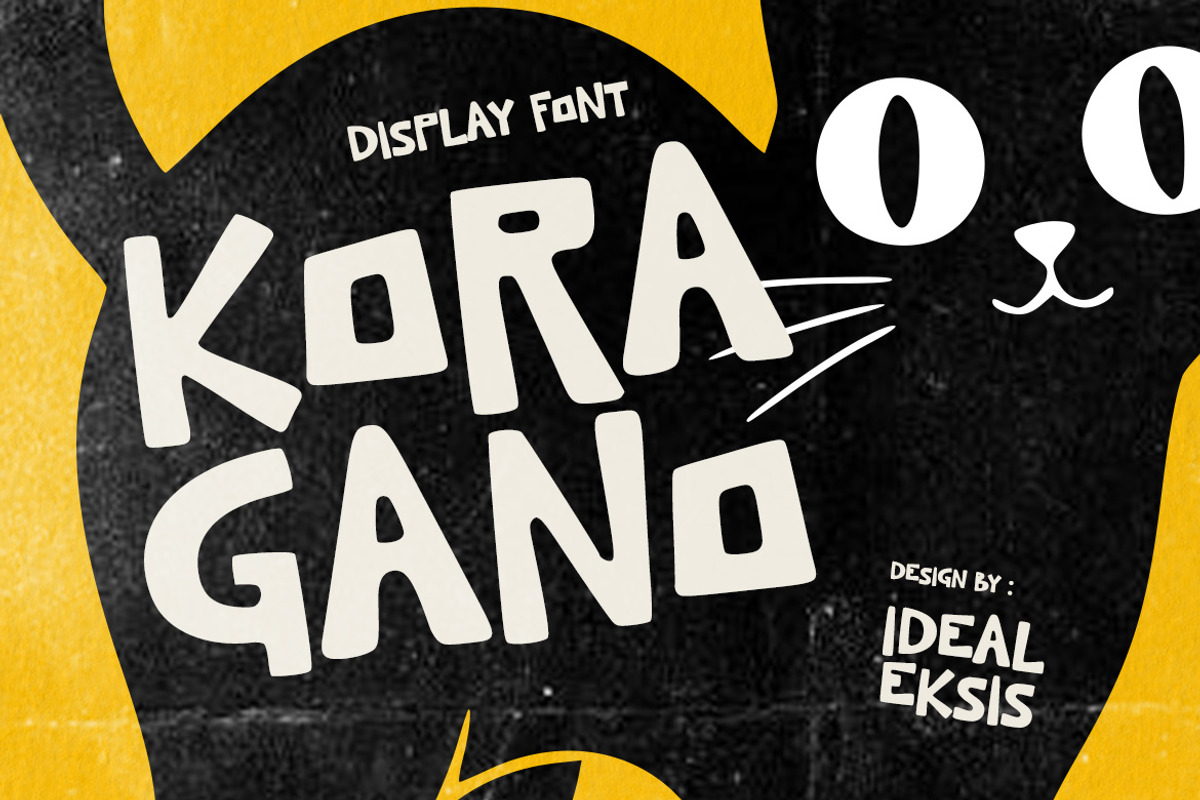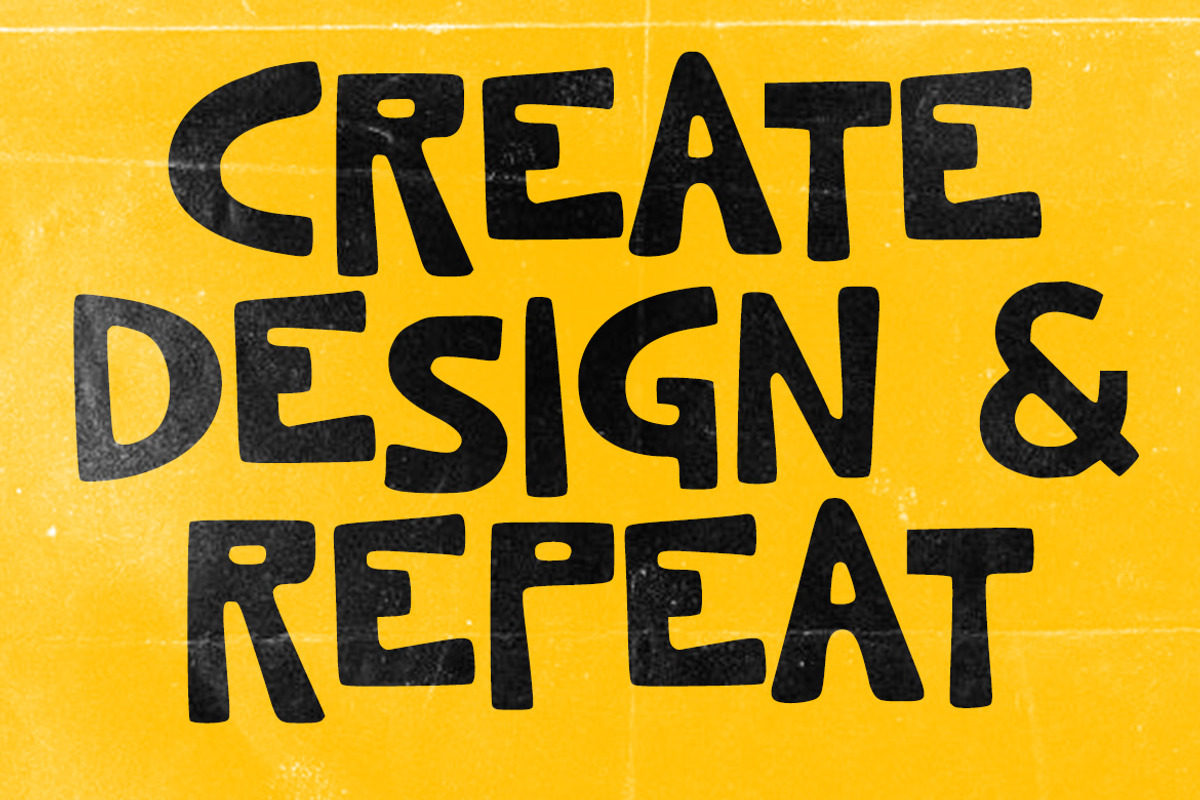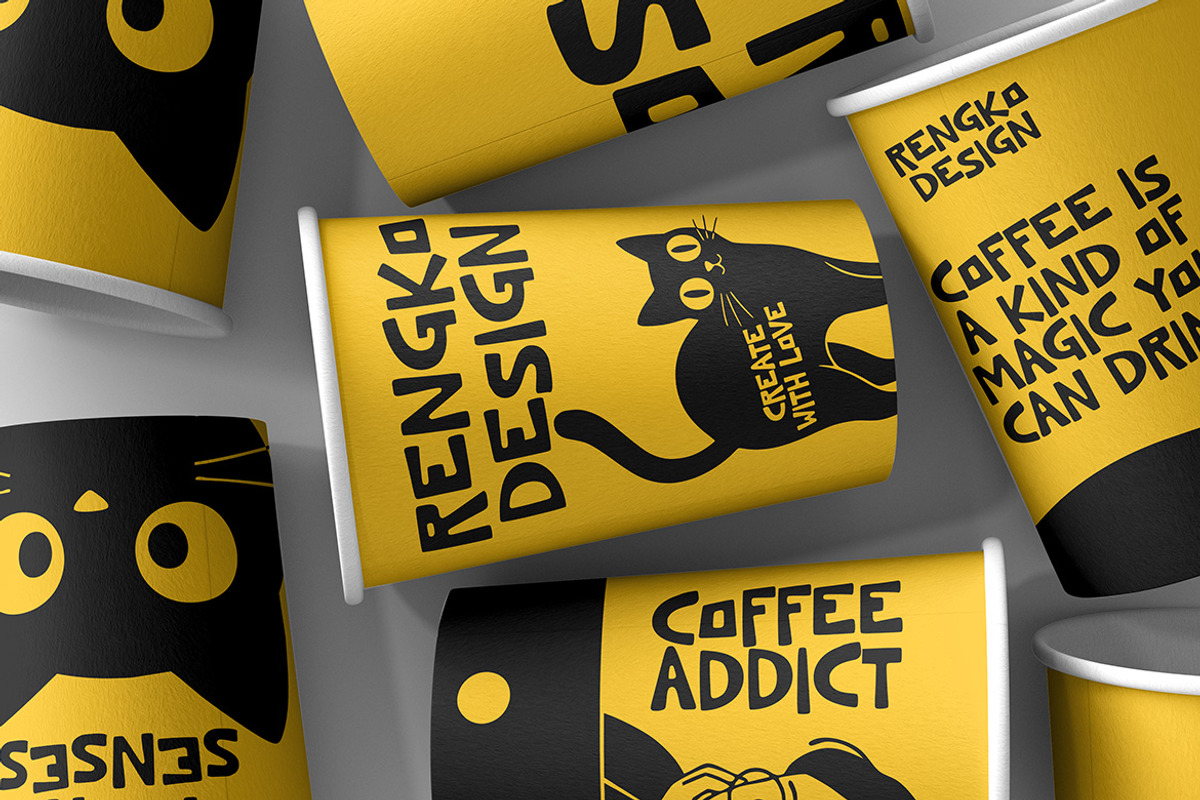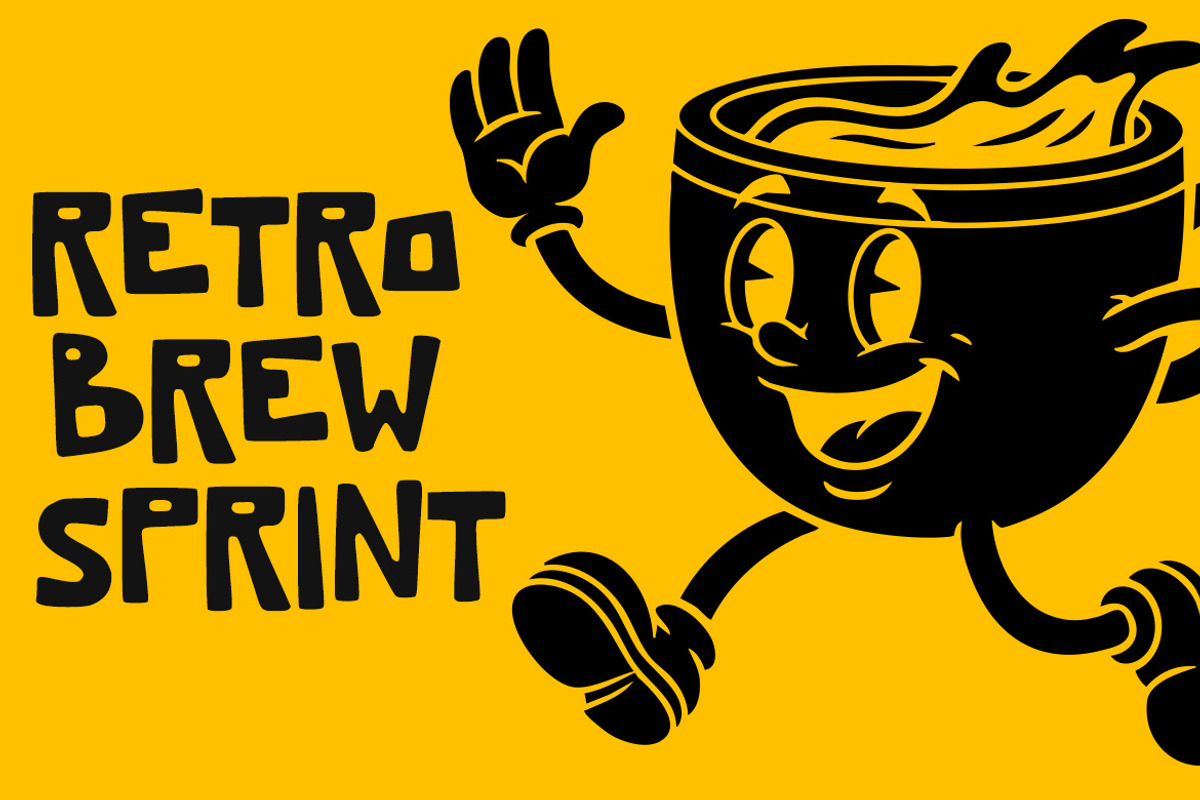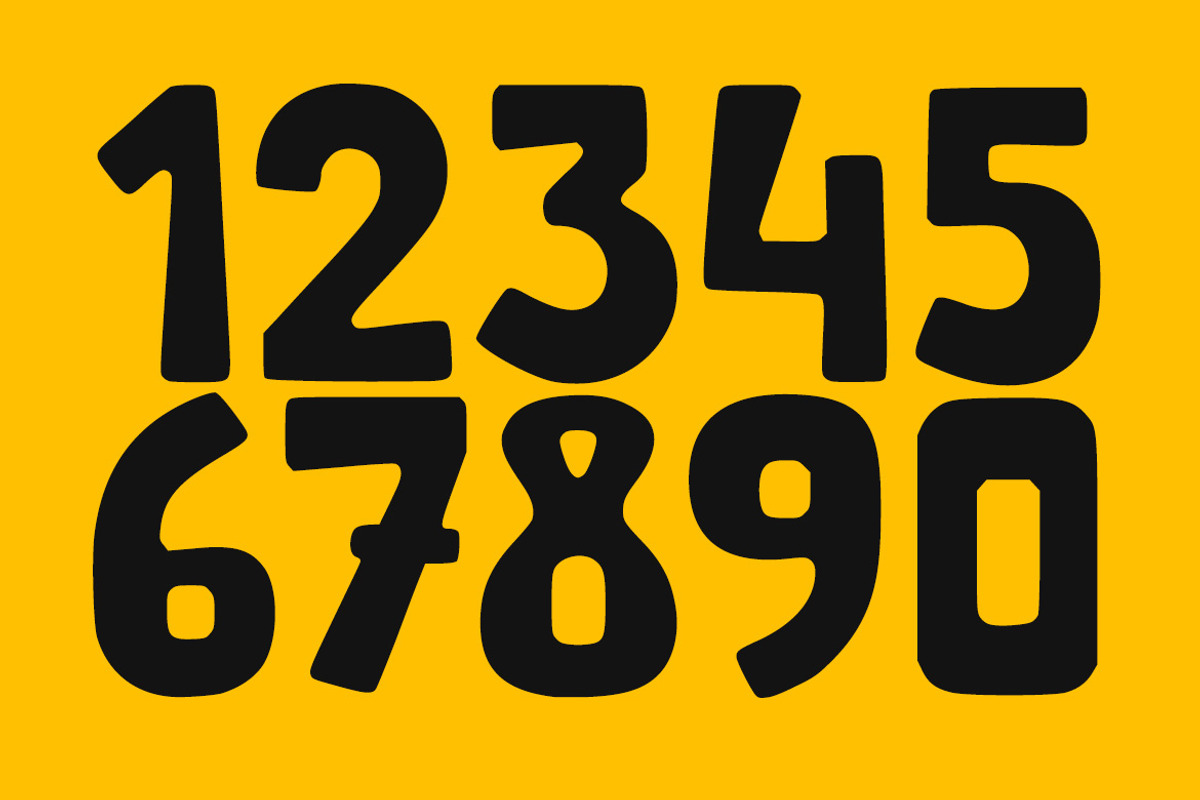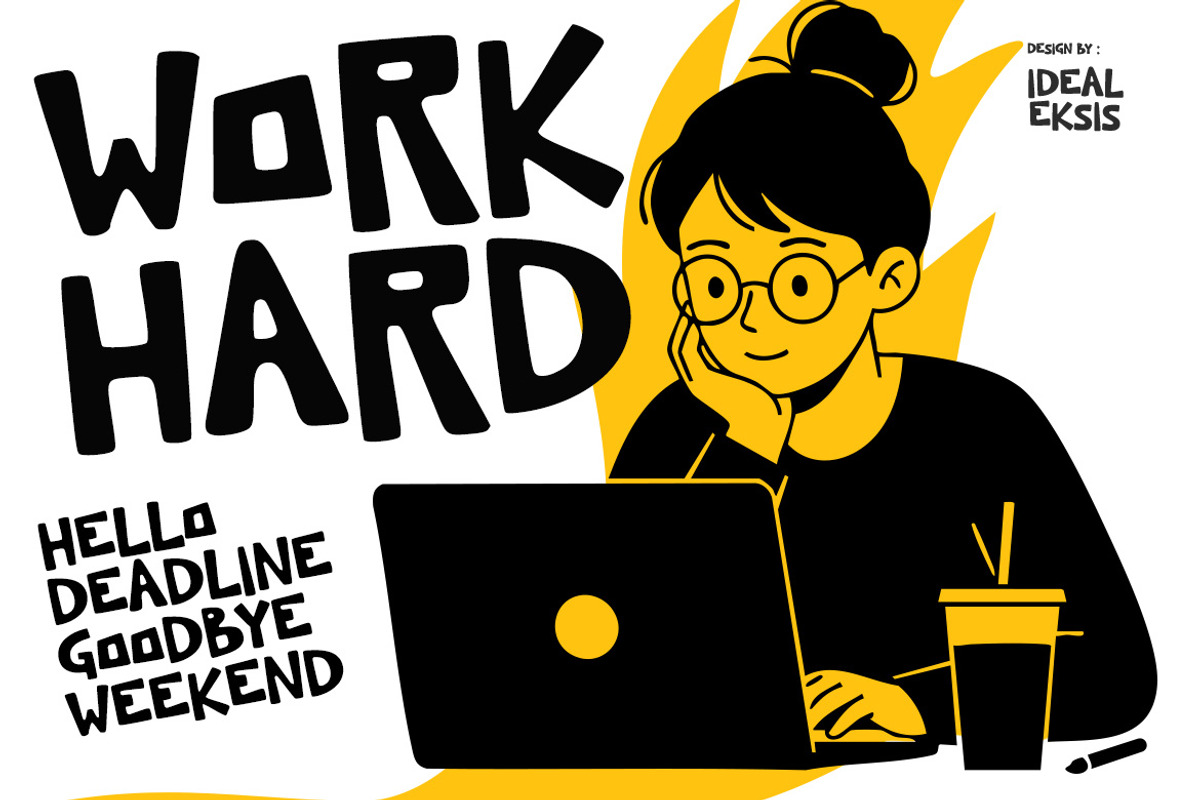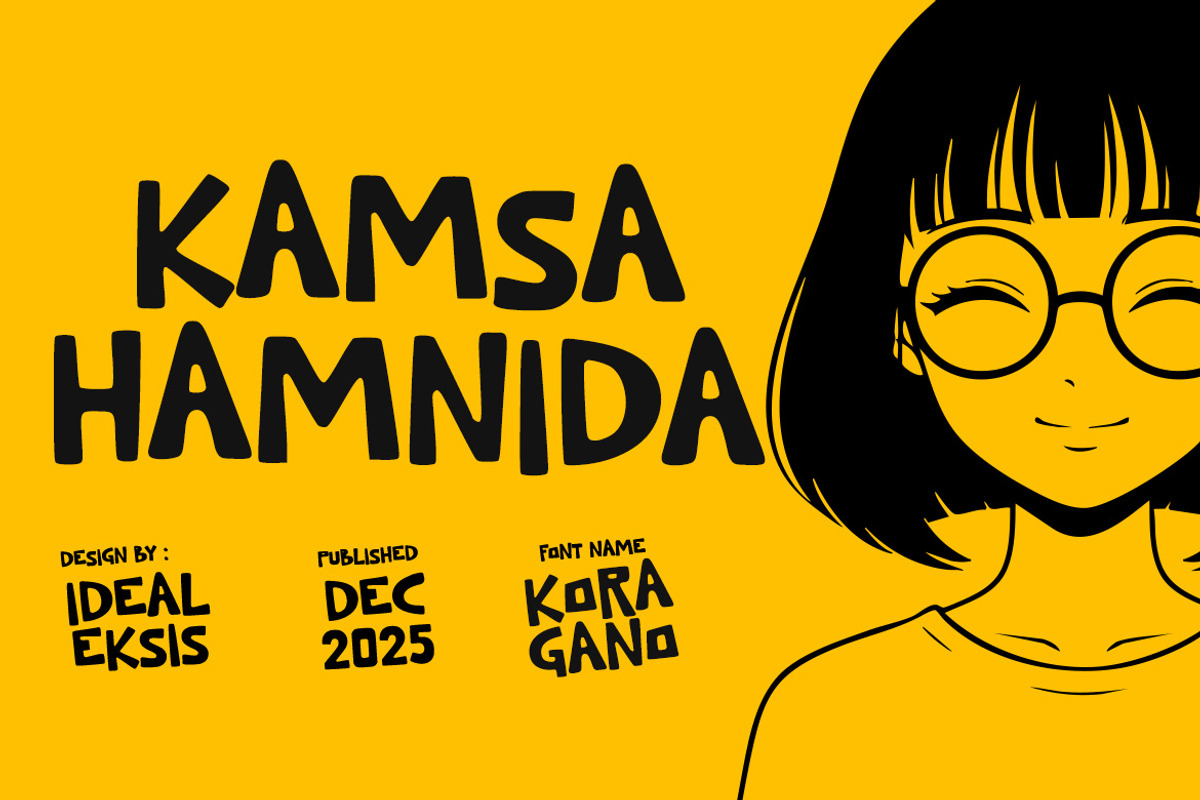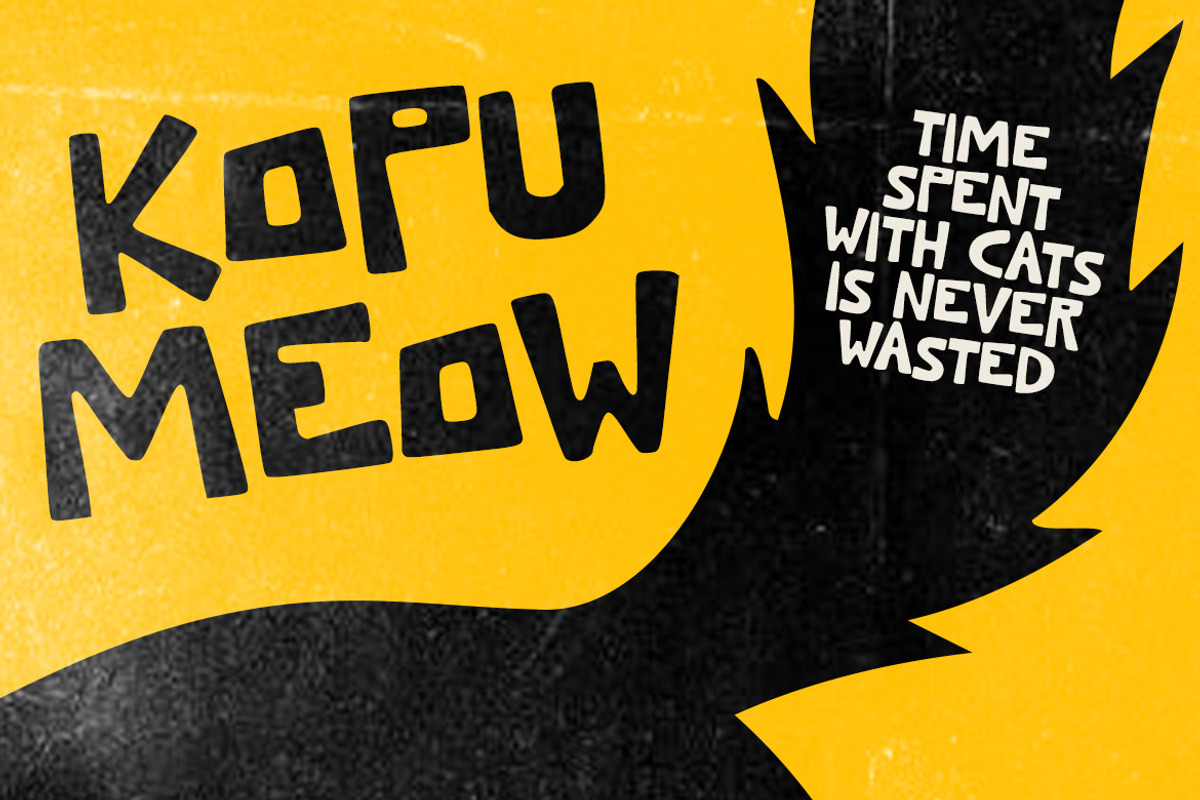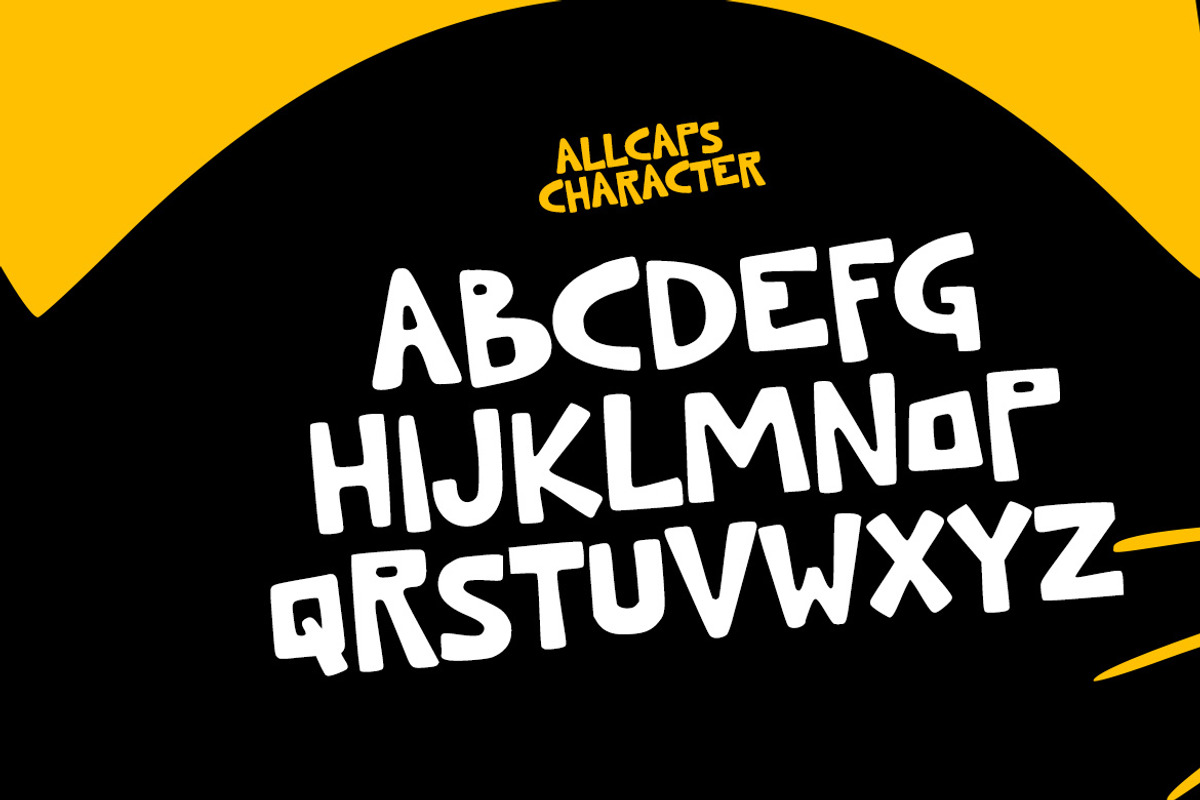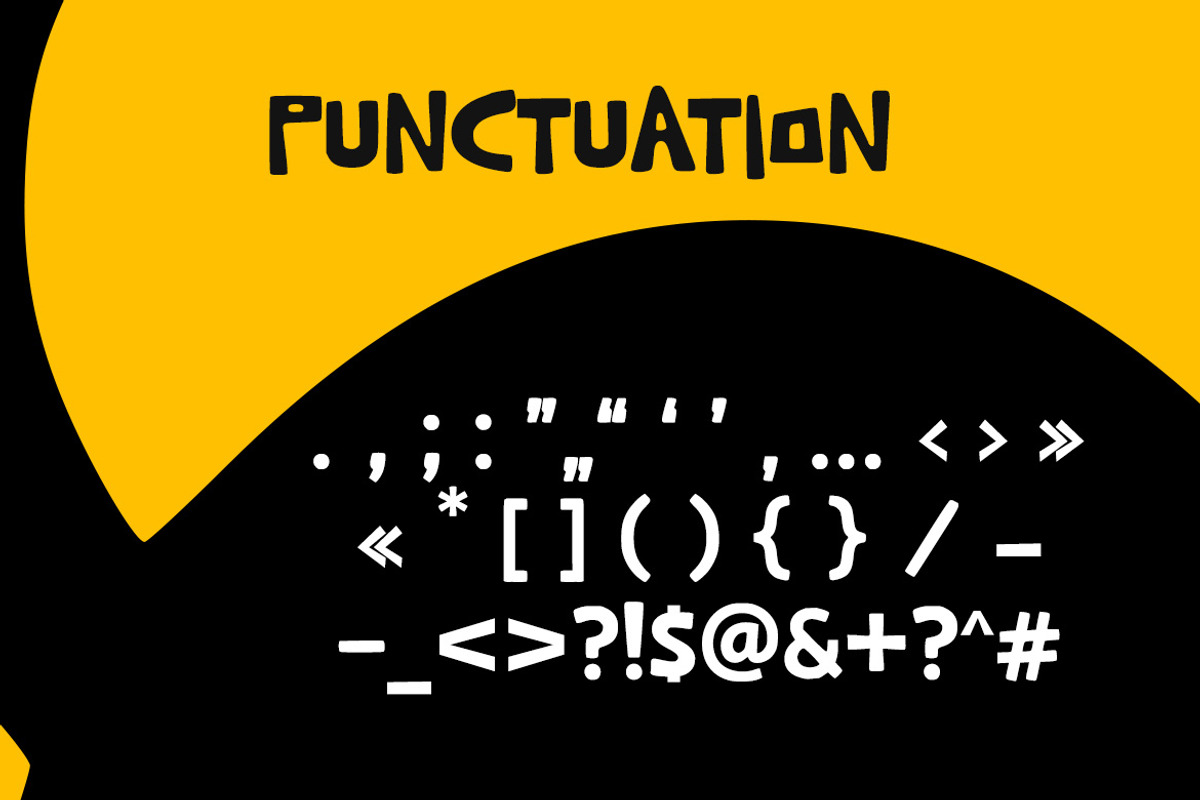
Kora Gano - Food Font
Kora Gano is a delightfully quirky display font that brings a burst of playful energy to any design. With its bold, rounded letterforms and charmingly irregular baseline, this typeface exudes a hand-drawn, vintage cartoon aesthetic. Each character feels unique, boasting soft edges and a friendly, approachable demeanor that instantly captures attention. Perfect for projects that demand a touch of whimsy and personality, Kora Gano is ideal for children's books, playful branding, vibrant posters, comic book titles and any creative endeavor looking to make a fun, memorable statement. Let Kora Gano infuse your designs with its irresistible charm and spirited character!
Uppercase (All Caps)
Numerals
Perfect for
Bakery and café branding
Food and beverage logos
Restaurant menus and signage
Coffee shop and donut shop designs
Food packaging and labels
Social media food promotions
Kitchen-themed posters and prints
Culinary blogs and recipe graphics